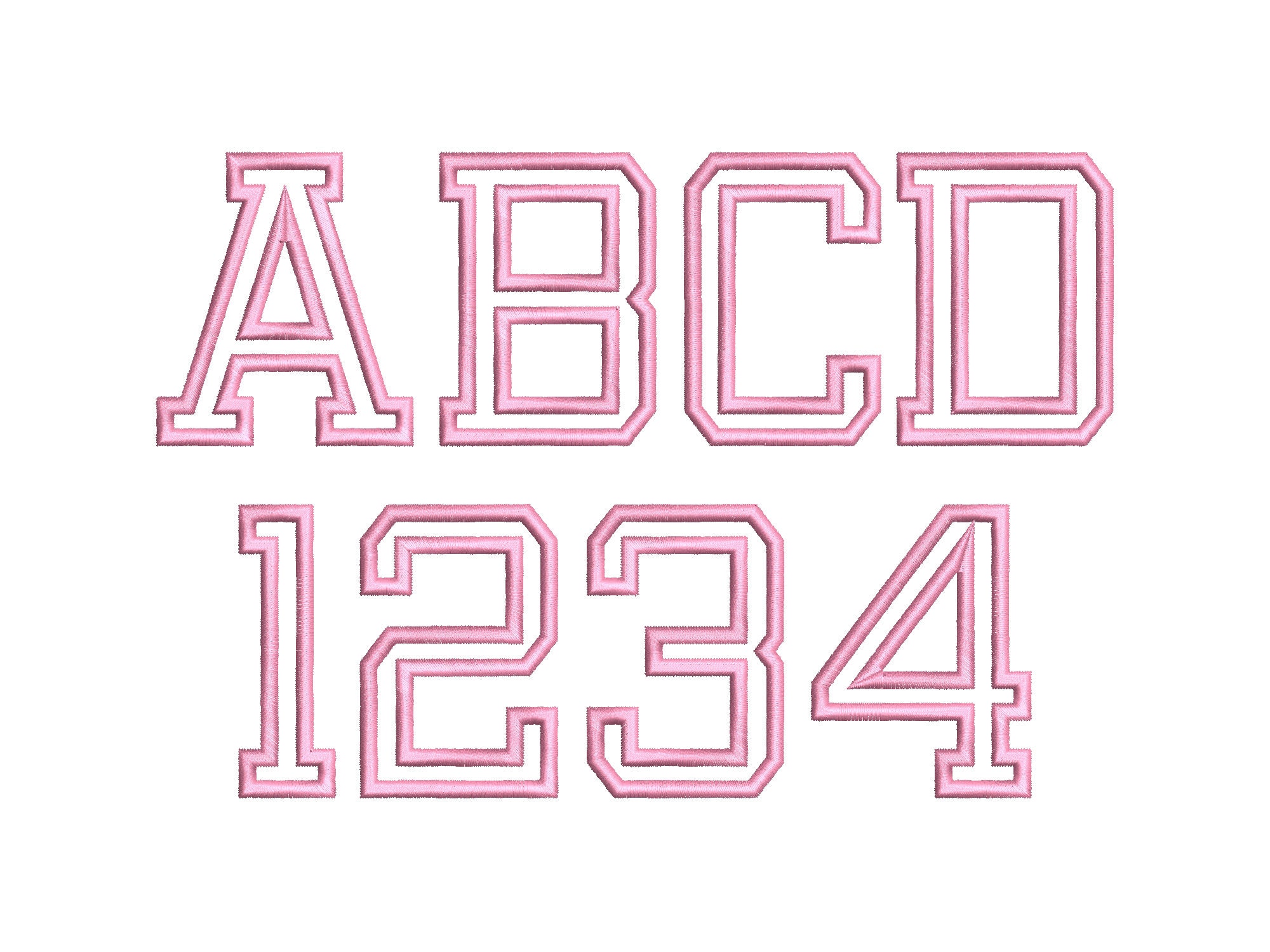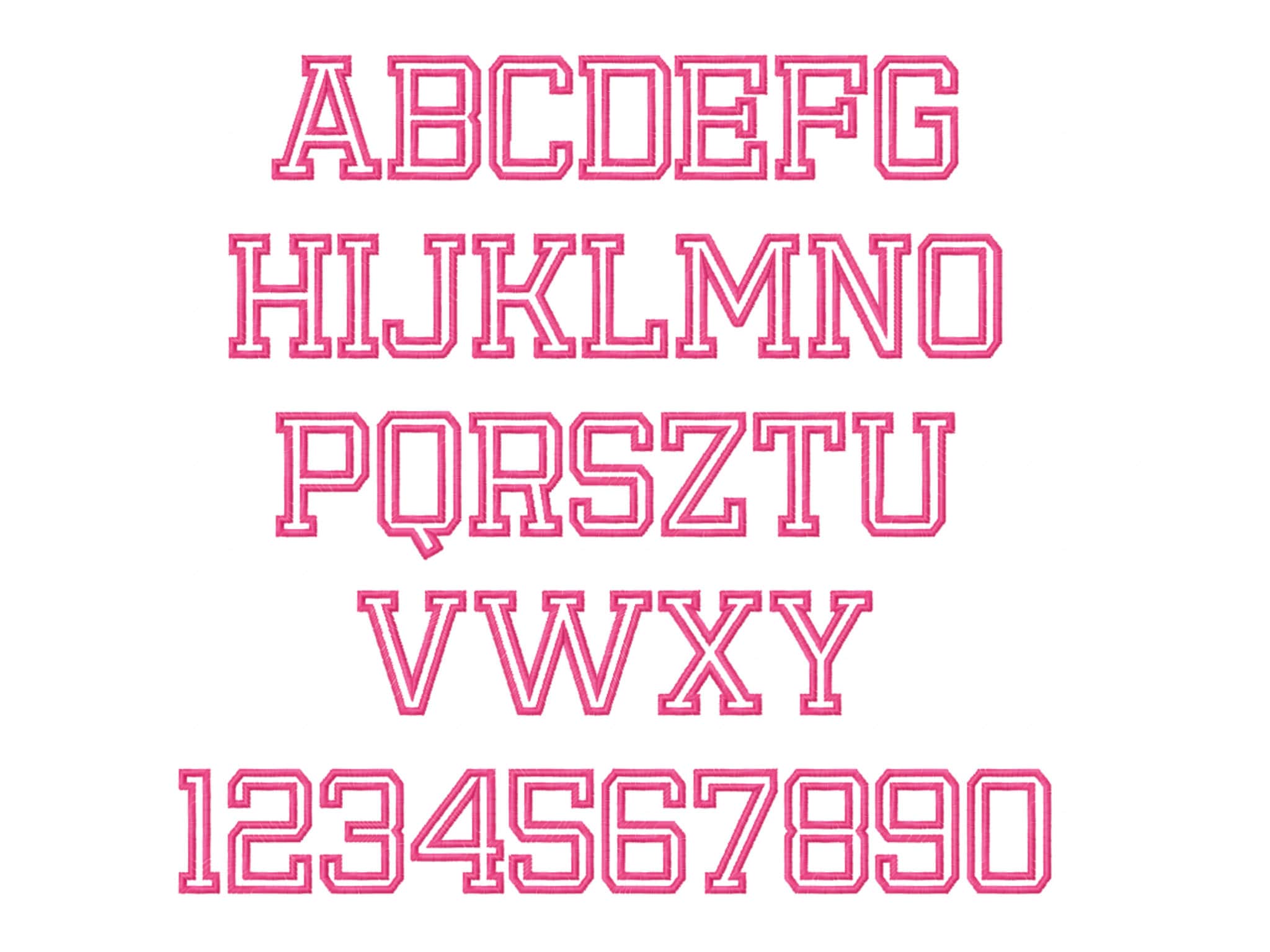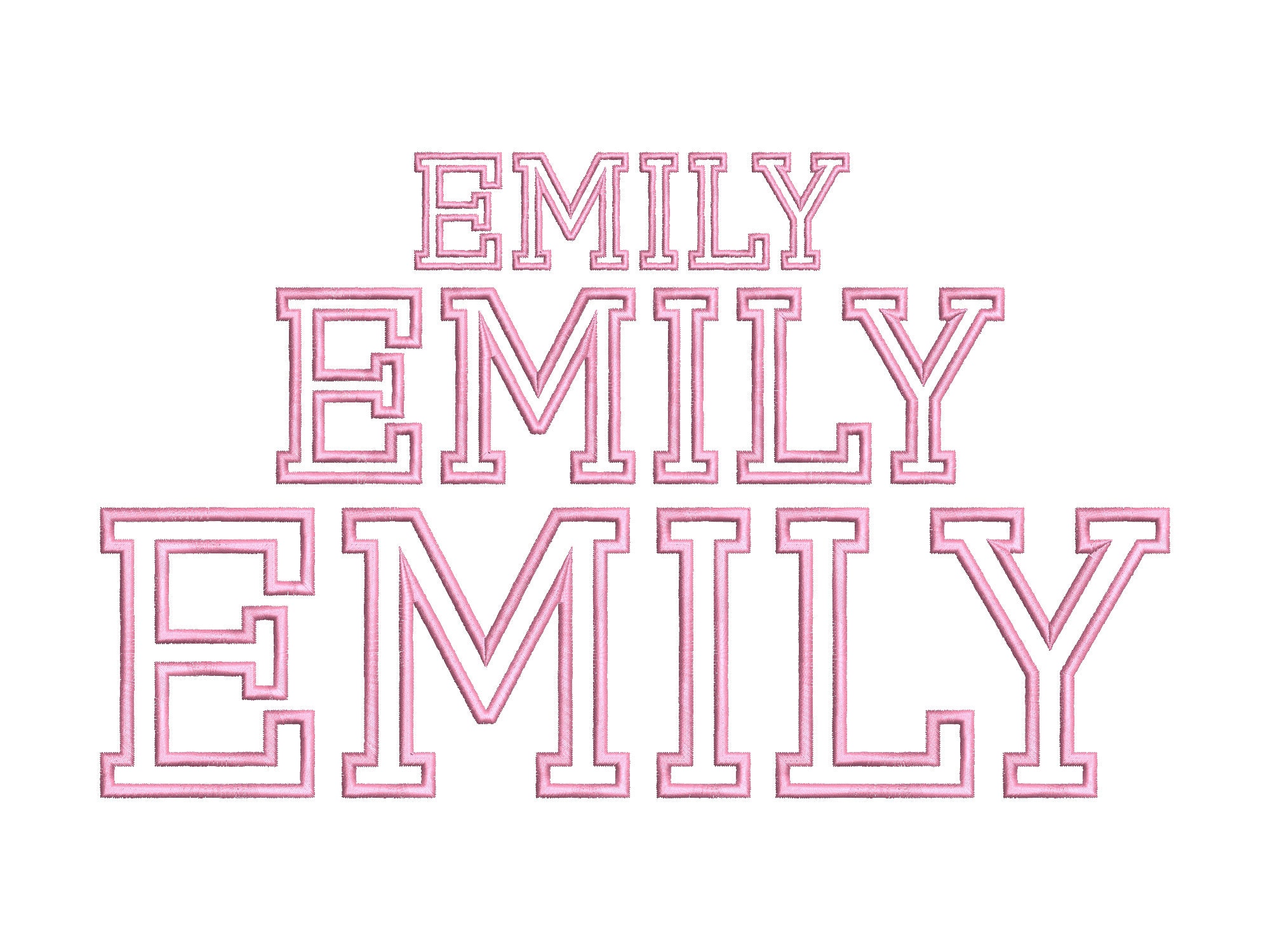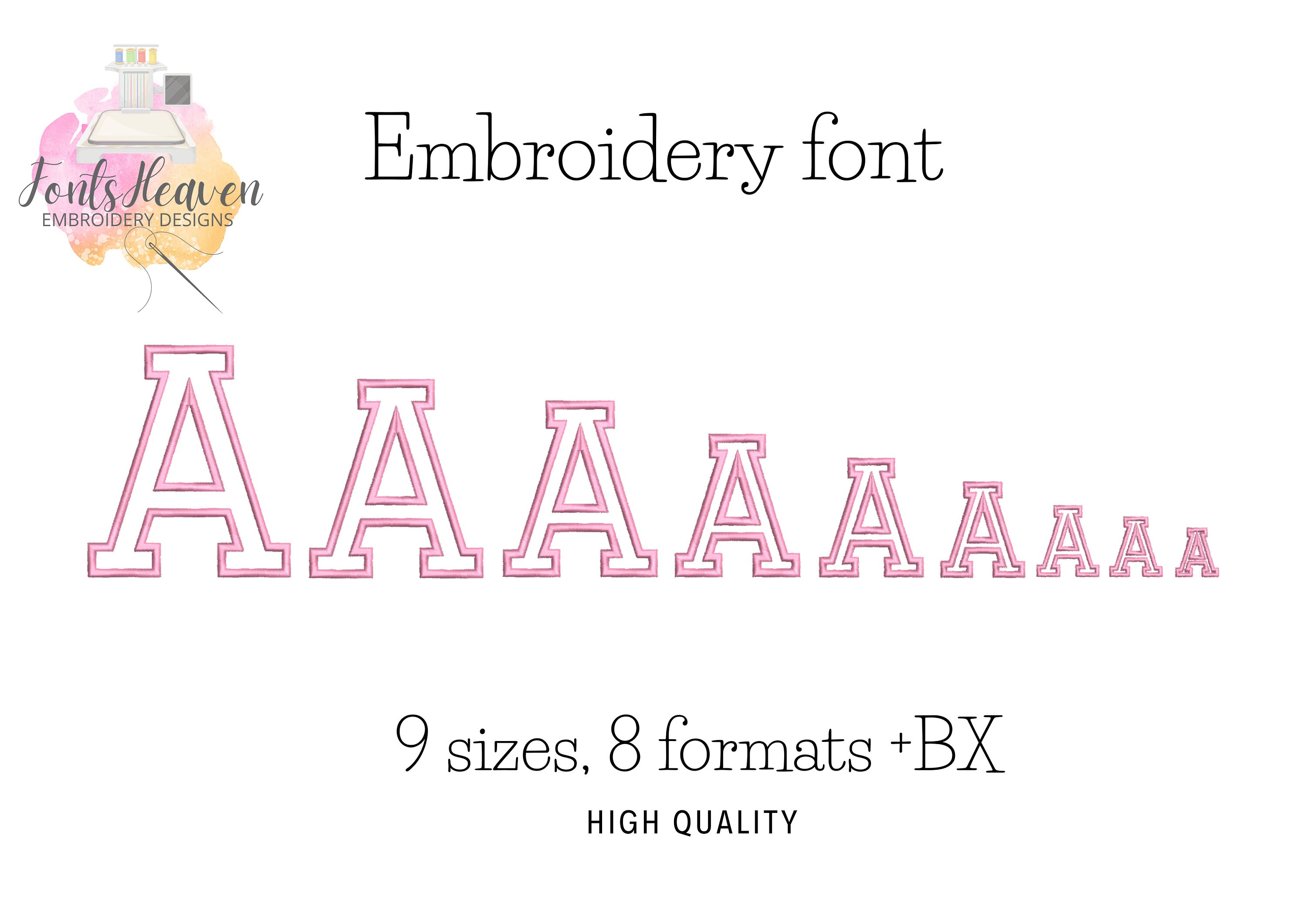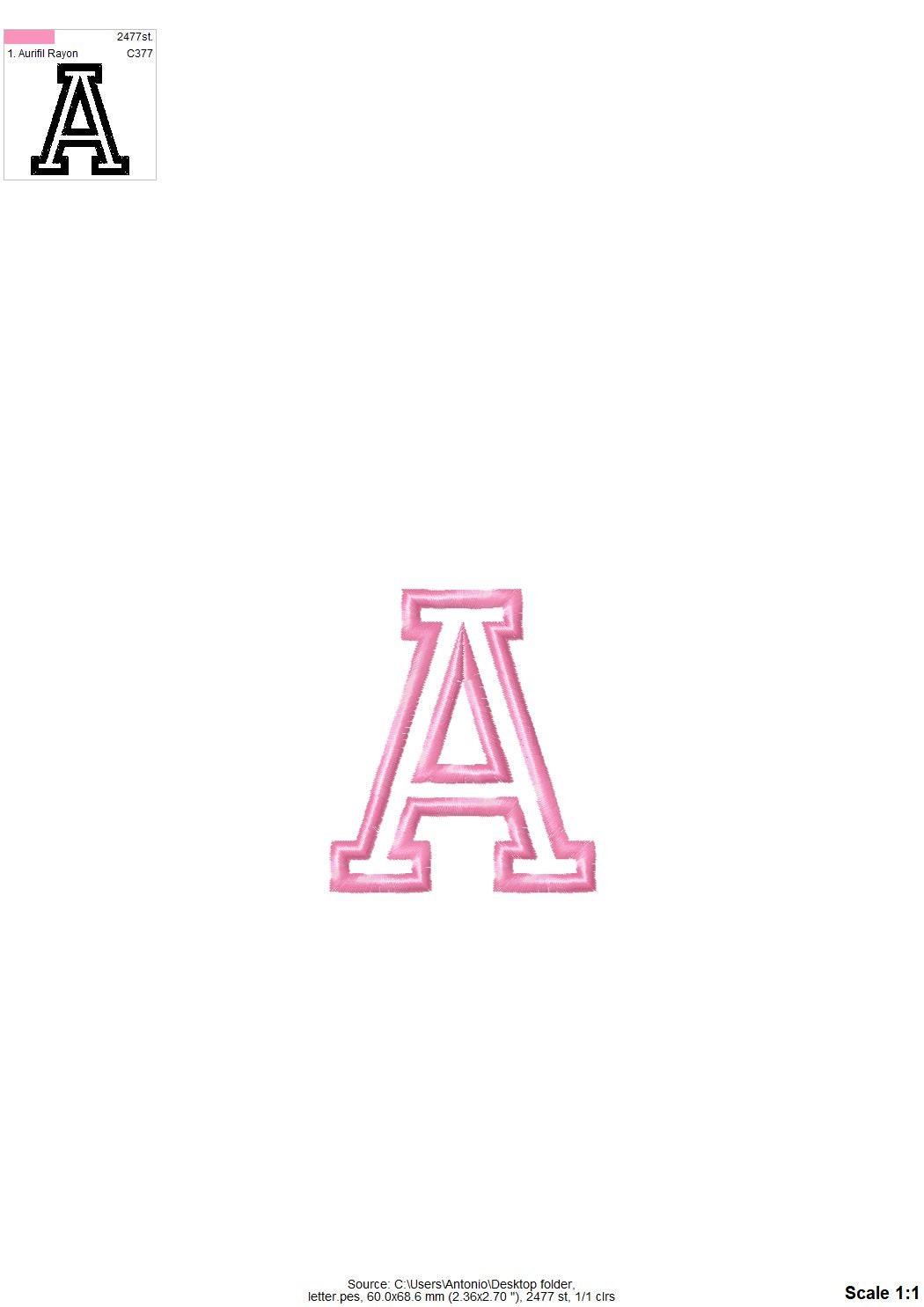
Block Font Varsity Collegiate alphabet letters Outline Font machine embroidery designs many sizes 0.9 thru 4.4 inches Sport font monogram, BX
Uppercase letters A-Z, and numbers 0-9.
The font is transparent, it has a nice satin stitch outline.